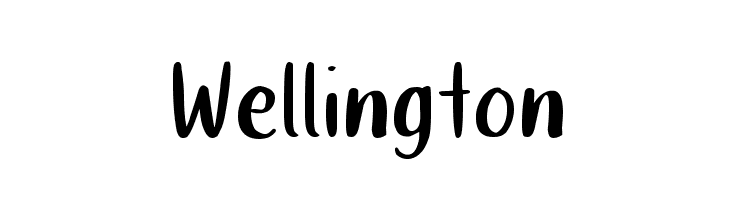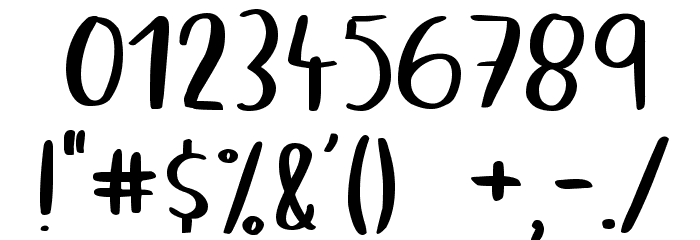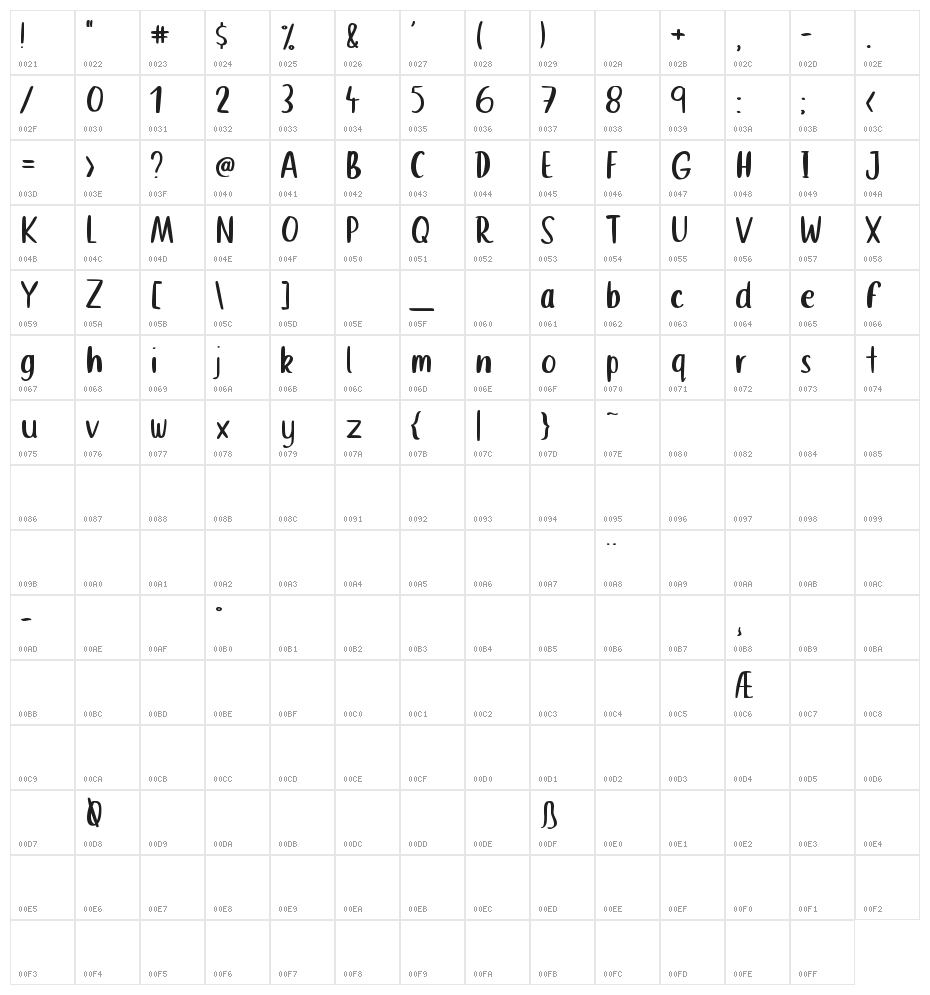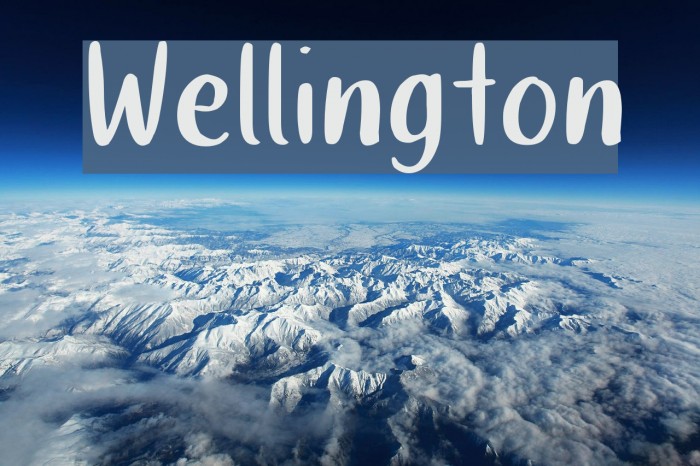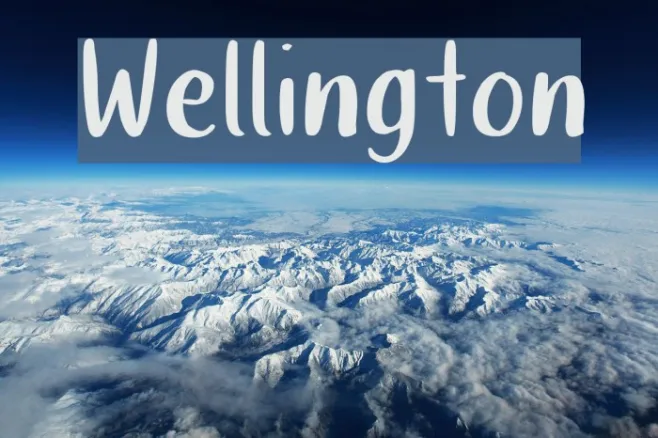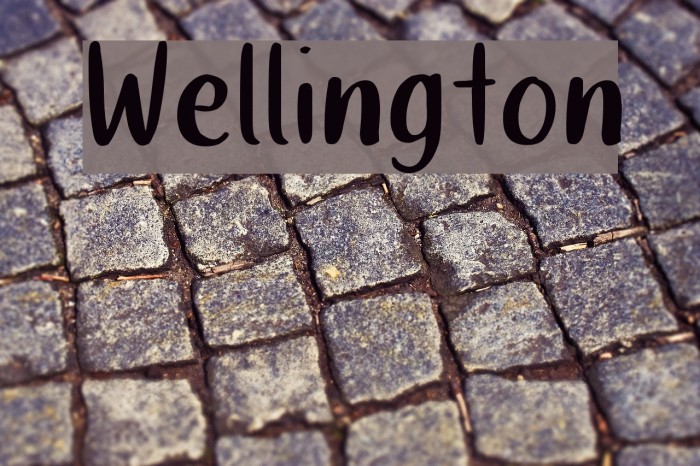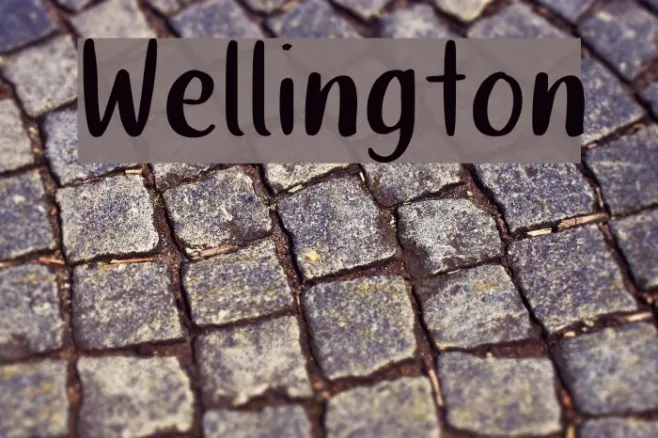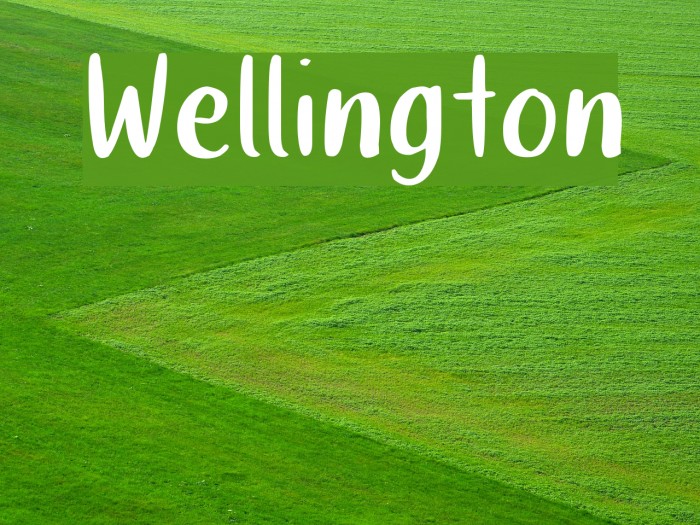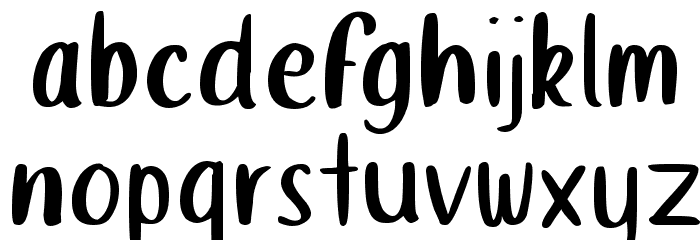
Wellington Font
Wellington Description
This font features a playful and casual handwritten style with a smooth, flowing appearance. The letters are slightly slanted, giving a dynamic and informal feel. The uppercase characters are bold and rounded, while the lowercase letters maintain a consistent thickness, adding to the font's legibility. The numerals are well-proportioned and match the overall style, making them easy to read. Special characters are included, maintaining the same playful aesthetic. The font's overall appearance is friendly and approachable, suitable for a variety of creative projects.
| Proposed Projects | Ideal for greeting cards, invitations, children's books, and playful branding. |